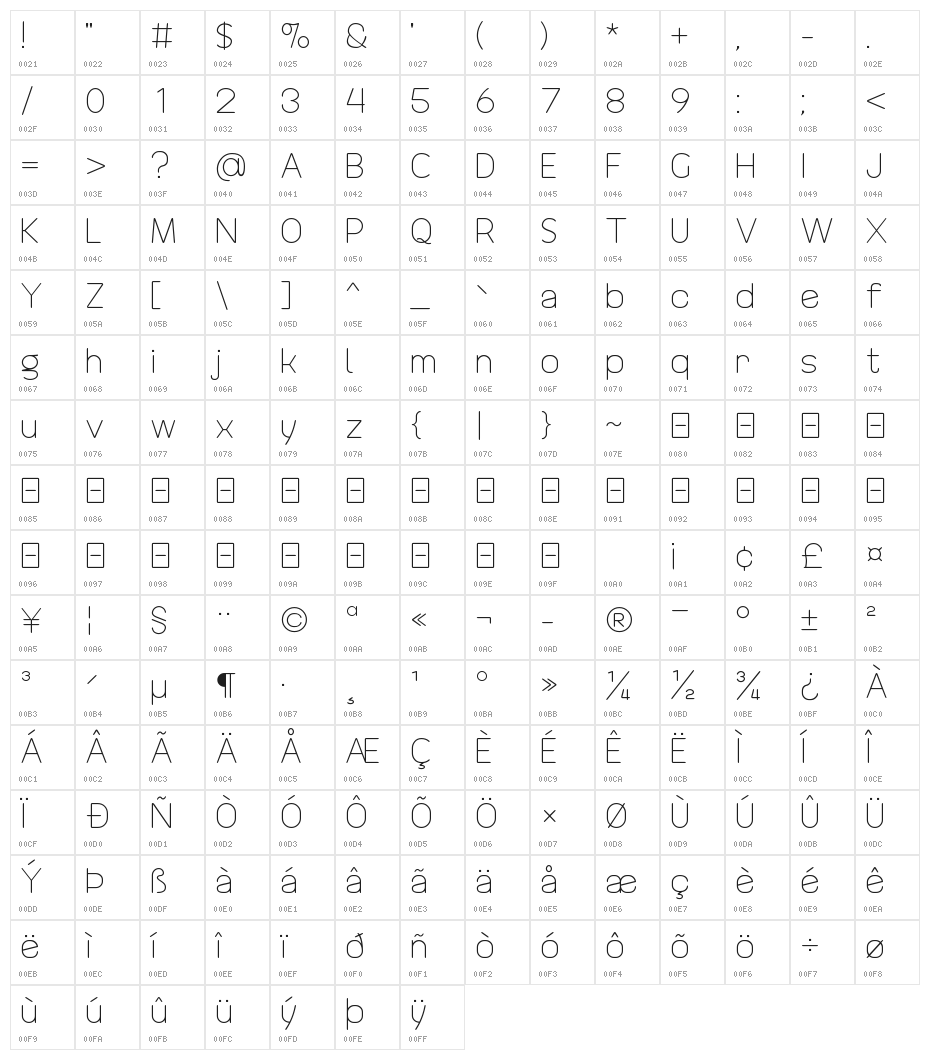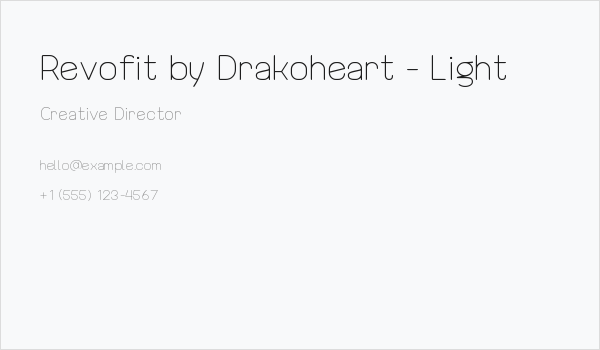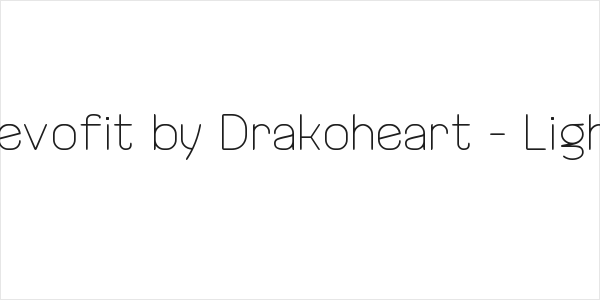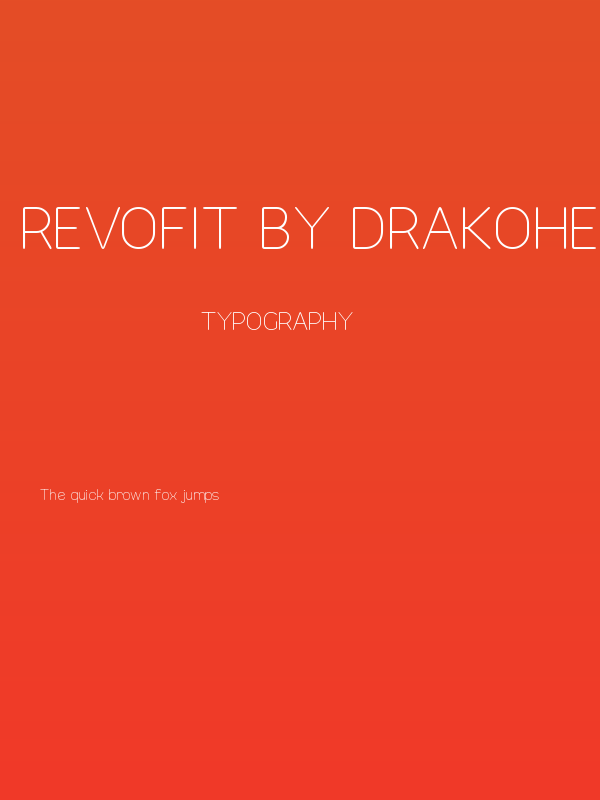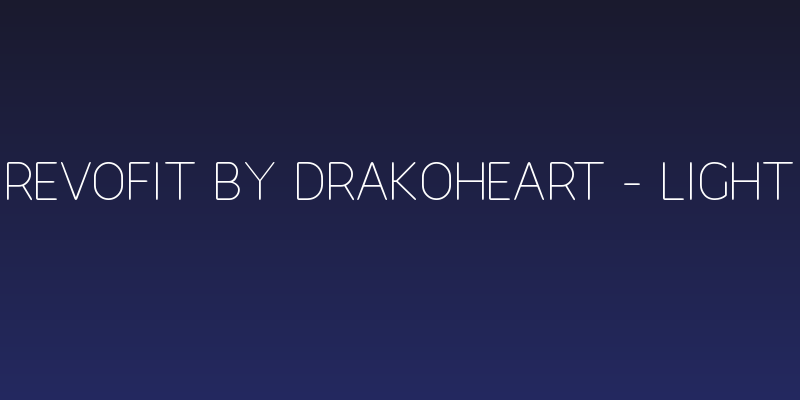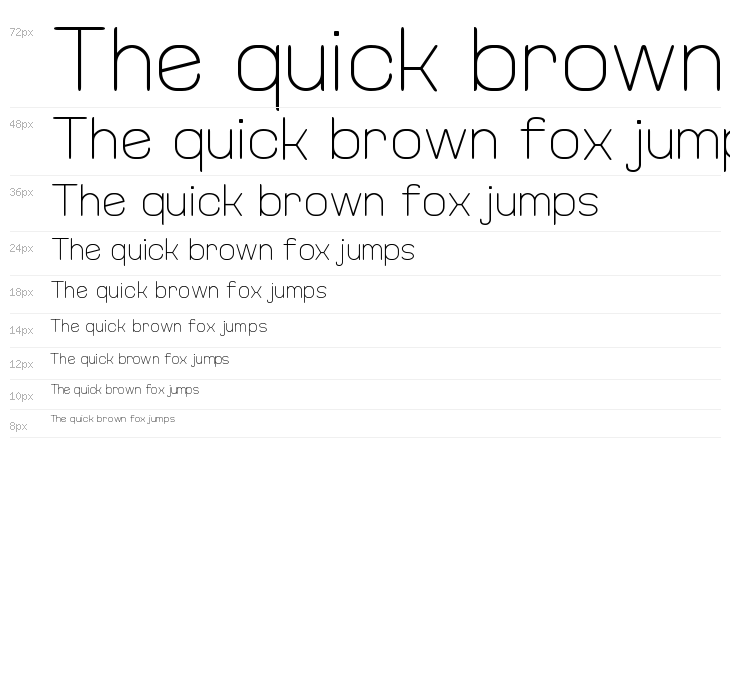
Revofit by Drakoheart - Light Font
Revofit by Drakoheart - Light Description
This font features a clean and modern sans-serif style with a light weight, offering a sleek and minimalist appearance. The characters are evenly spaced with a normal width, providing excellent readability. The design is characterized by smooth curves and straight lines, giving it a contemporary and professional look. The font includes a full set of uppercase and lowercase letters, numbers, and a variety of special characters, making it versatile for various design needs. Its simplicity and elegance make it suitable for both digital and print media.
| Proposed Projects | Ideal for branding, web design, corporate materials, and minimalist graphic design projects. |